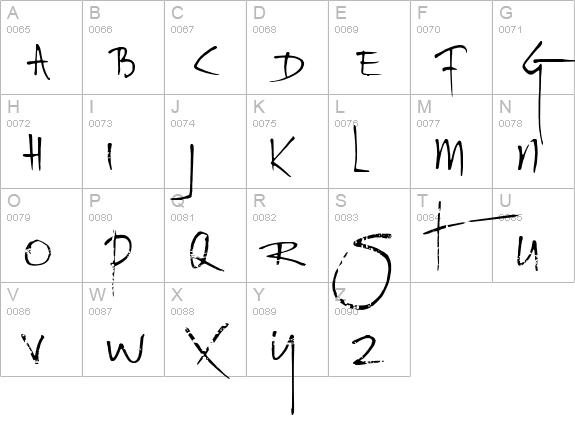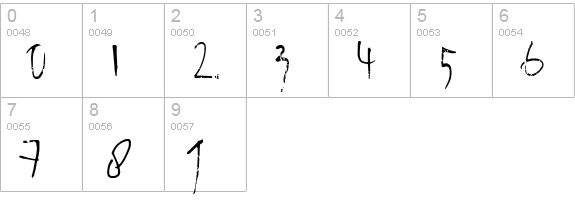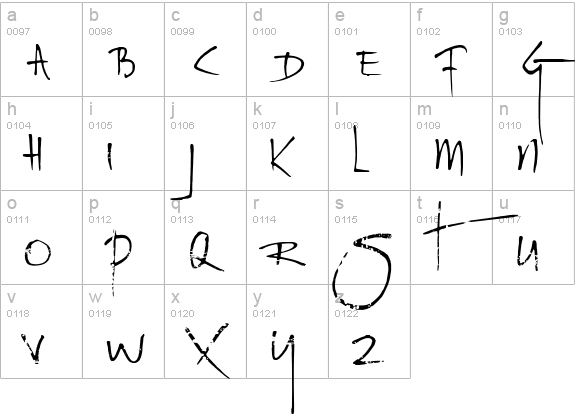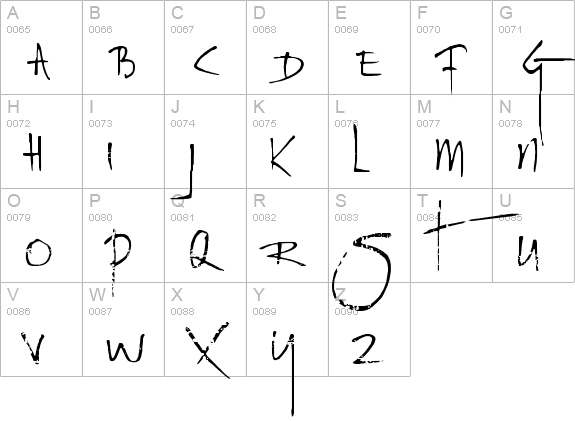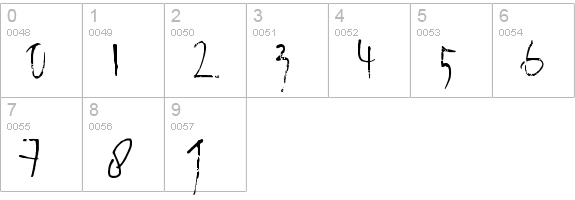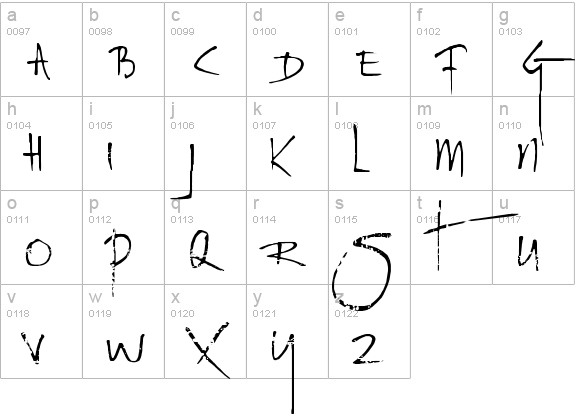
Rat Infested Mailbox Font Details
Introducing the captivating and delightfully unconventional Rat Infested Mailbox font. Inspired by the mysterious allure of the nocturnal creatures, this font provides a unique and edgy twist to your typographic creations. With its intricately handcrafted design, Rat Infested Mailbox exudes a sense of untamed creativity and urban charm. This font is perfect for those seeking to break away from the norm and make a bold statement. Whether you're designing a logo, poster, or even a website, Rat Infested Mailbox will add a touch of gritty authenticity that is sure to captivate your audience. What's more, Rat Infested Mailbox is available to download for free at FontsMarket.com. Yes, you heard it right - this font is yours to explore and utilize without any cost. Now you can effortlessly incorporate this one-of-a-kind typeface into your projects, without worrying about breaking the bank. So, why wait? Unleash your creativity and embrace the unconventional with Rat Infested Mailbox font. Download it for free at FontsMarket.com and enjoy the freedom to create truly unique designs that stand out from the crowd.